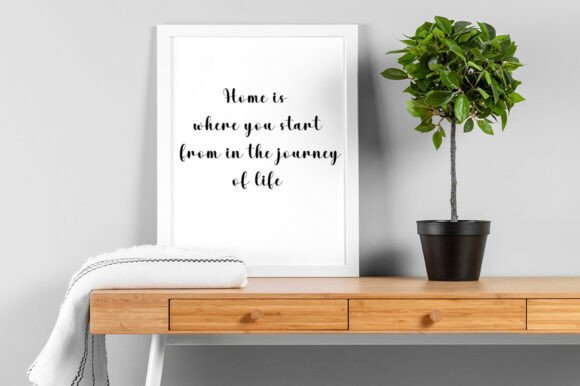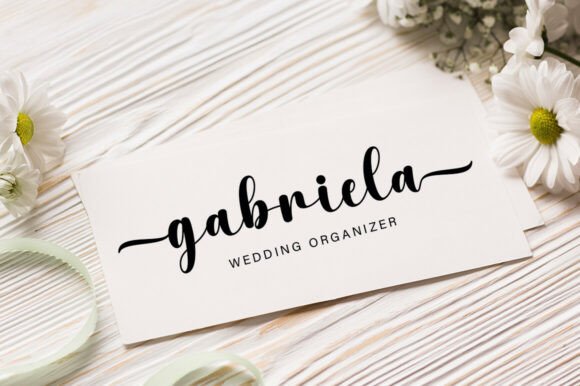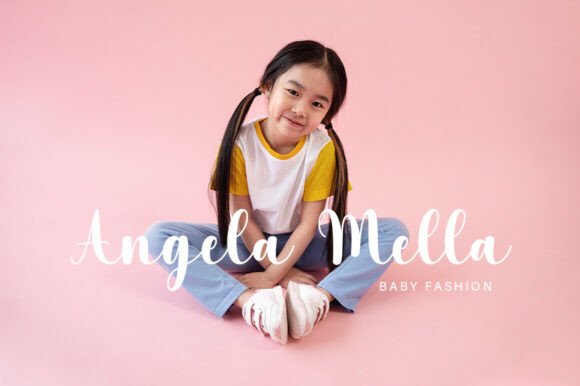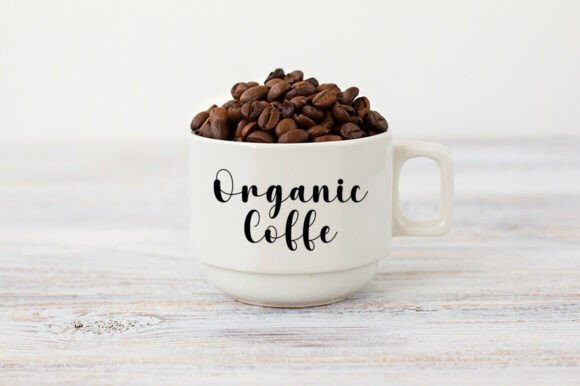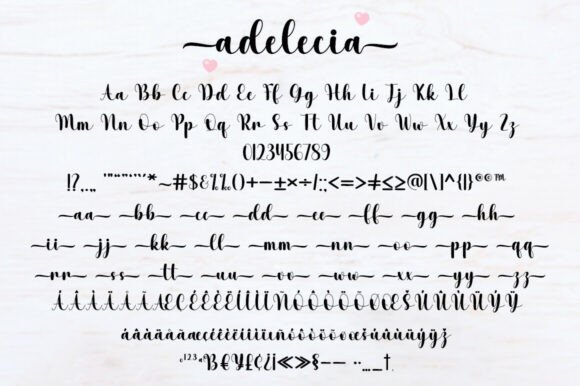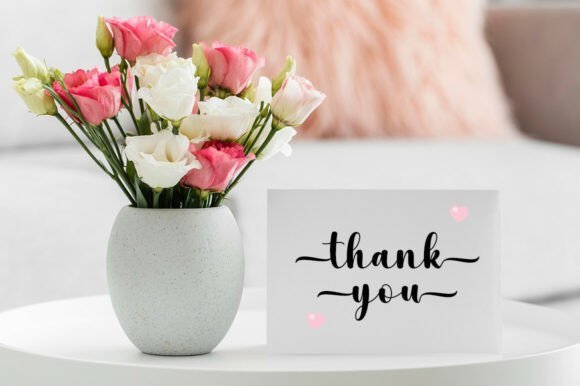
Introduction to Adelecia Font
Do you ever find yourself staring at a blank page, struggling to find the perfect words to express your creativity? For many designers, this is a familiar feeling. But what if you had a secret tool to unlock your imagination and bring your creative project to life? Enter the enchanting Adelecia Font, a delicate handwritten font that’s about to become your new design BFF.
With its unique blend of elegance and playfulness, Adelecia Font is the perfect addition to any design resource. Whether you’re crafting invitations, designing food labels, or creating titles for your next big project, this high-quality font is sure to impress. And the best part? It’s available for free download, so you can get creative without breaking the bank. Plus, its transparent background makes it easy to layer with other design elements.
- High-quality design resource ideal for creative projects, including logos, branding, and advertising materials.
- Available in 5 font styles, each with its unique characteristics, making it suitable for a wide range of creative projects.
- Perfect for designers, artists, and creatives looking for a unique and stylish font to elevate their work.
- Supports various languages, making it a versatile design resource for global creative projects.
Honest Review: Adelecia Font
I recently stumbled upon the Adelecia Font, and I must say it’s a great addition to any design resource collection. This beautiful script font is perfect for creative projects that require a touch of elegance.
- High-quality design: The Adelecia Font boasts intricate details and a smooth, polished look.
- Transparent background: This feature makes it easy to use the font on various backgrounds, ensuring seamless integration with your design.
- Limited font styles: The Adelecia Font only comes in a few styles, which might limit its versatility in certain projects.
- Not suitable for large text: Due to its script nature, the font may not be the best choice for large blocks of text.
Overall, I’m impressed with the Adelecia Font. Its unique design and transparent background make it an excellent choice for creative projects. While it may have some limitations, it’s definitely worth considering as a free design resource.
Adelecia Font
Use the transparent background feature to create striking graphics and designs. Experiment with different font sizes and styles to add visual interest to your project.
Adelecia Font is ideal for logos, social media graphics, and web design projects. Its high-quality design makes it perfect for creating eye-catching visuals that grab attention.
Is the Adelecia Font suitable for large-scale printing?
Yes, the Adelecia Font is designed to be high-quality and suitable for large-scale printing. It is available in a range of sizes and resolutions, making it perfect for use in posters, billboards, and other printed materials. However, please note that the font’s legibility may vary depending on the printing resolution and paper quality.